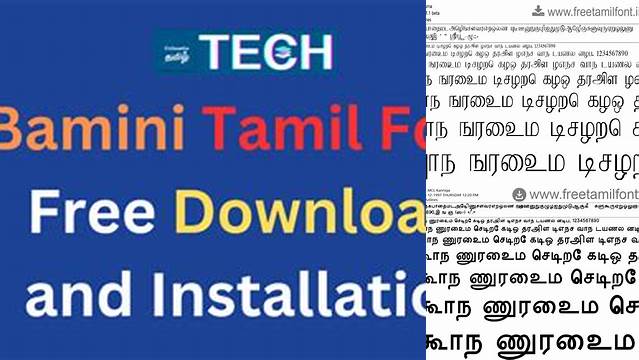
The Bamini Tamil font holds a special place in the hearts of many who work with Tamil script on computers. It's a legacy font, widely used for decades, and is still essential for those who need to access or create documents in older Tamil formats. Its distinct style is instantly recognizable, making it a go-to choice for various applications, from personal documents to professional publications. For many seasoned Tamil typists, Bamini is more than just a font; it's a familiar tool that allows them to express themselves in their native language with ease and precision. The font's widespread adoption has also led to a vast archive of documents and resources created using it, further cementing its importance in the digital landscape of Tamil literature and communication. Understanding the nuances of Bamini, its history, and its continued relevance is crucial for anyone working with Tamil script in the digital age.
What is Bamini Font and Why is it Important?
So, what exactly is the Bamini font, and why is it so important? The Bamini font is a widely used, traditional Tamil font that's been around for ages. It's a monospaced font, meaning each character takes up the same amount of horizontal space, much like the fonts used on typewriters. This uniformity makes it easy to read and was a standard in early computing days when Tamil fonts were still developing. Its classic, clear design has made it a favorite for many users, and it's often the go-to choice for documents, publications, and even creative projects. The font's enduring popularity is a testament to its readability and the ease with which it can be used for various applications.
But the importance of Bamini font goes beyond its aesthetic appeal. It's deeply intertwined with the history of Tamil computing. Back in the day, when computers weren't as sophisticated as they are now, Bamini was one of the first Tamil fonts available. This early adoption means that countless documents, articles, and publications were created using Bamini. Think of it as the foundation upon which much of the digital Tamil content was built. Therefore, having access to Bamini font is essential for anyone who needs to read, edit, or preserve these historical documents. It's like having the key to a vast library of Tamil literature and information. Without the Bamini font, many of these valuable resources would be inaccessible, highlighting the font's crucial role in preserving Tamil cultural heritage.
Furthermore, the Bamini font is important for those who learned to type in Tamil using this font. Many older generation typists are accustomed to the Bamini keyboard layout, and switching to a different font can be a significant challenge. The font's widespread use in educational institutions and government offices has further cemented its importance. For these users, Bamini font isn't just a typeface; it's a familiar tool that allows them to work efficiently and comfortably. Retaining the use of Bamini ensures that these individuals can continue to contribute their expertise without facing unnecessary hurdles. In essence, the Bamini font bridges the gap between the past and the present, enabling seamless access to historical content while catering to the needs of a dedicated user base.